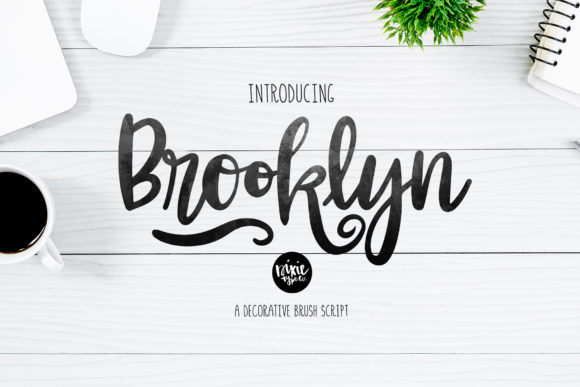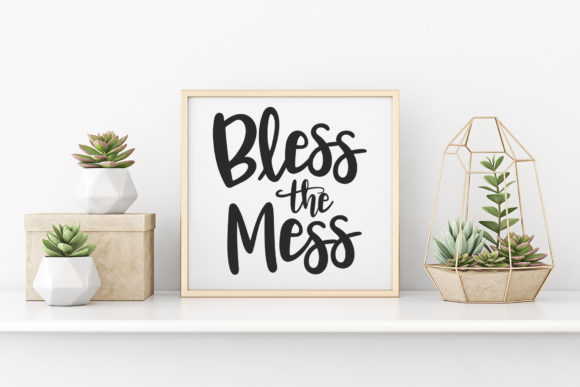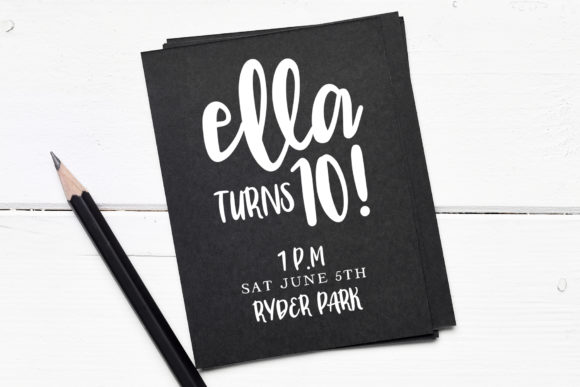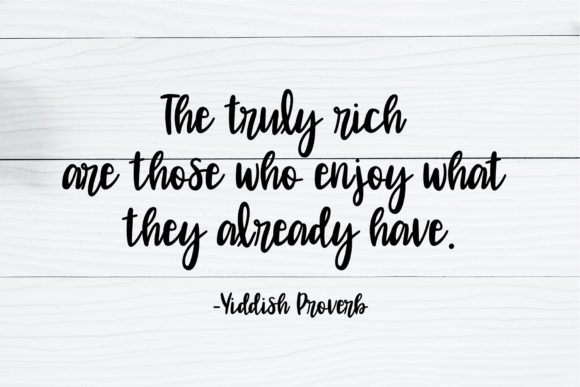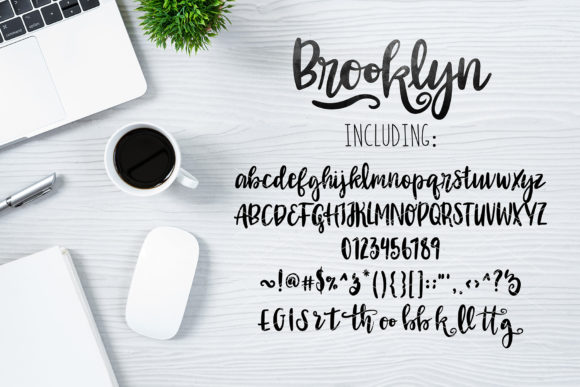
Brooklyn Font
About Brooklyn Font
Brooklyn is a stunning, bold and round lettered handwritten font. Due to its flowing and distinct style, Brooklyn will look outstanding in both
formal and non-formal designs.